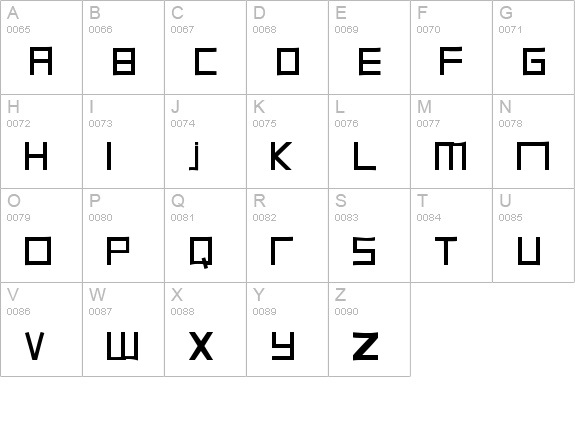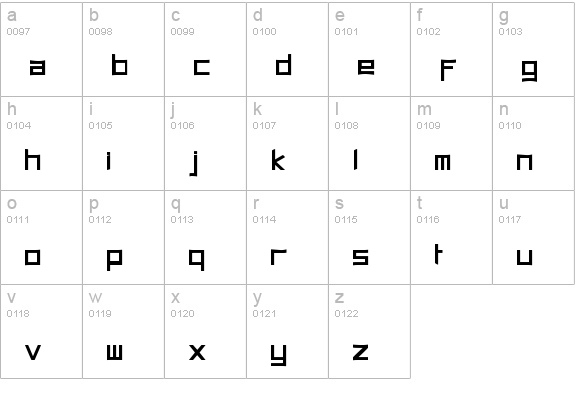
Halit's Font! Font Details
Introducing Halit's Font! - a modern and stylish typeface that is sure to make your designs stand out. This versatile font features sleek lines and unique letterforms that will add a touch of sophistication to any project. Whether you're designing a logo, poster, or website, Halit's Font! is the perfect choice to elevate your work to the next level. Best of all, Halit's Font! is completely free to download at FontsMarket.com. That's right, you can access this amazing font at no cost and use it in your personal and commercial projects without any restrictions. So why wait? Download Halit's Font! today and take your designs to new heights with this stunning typeface.